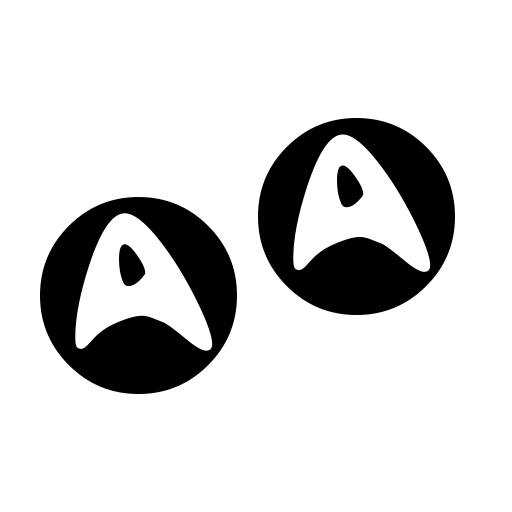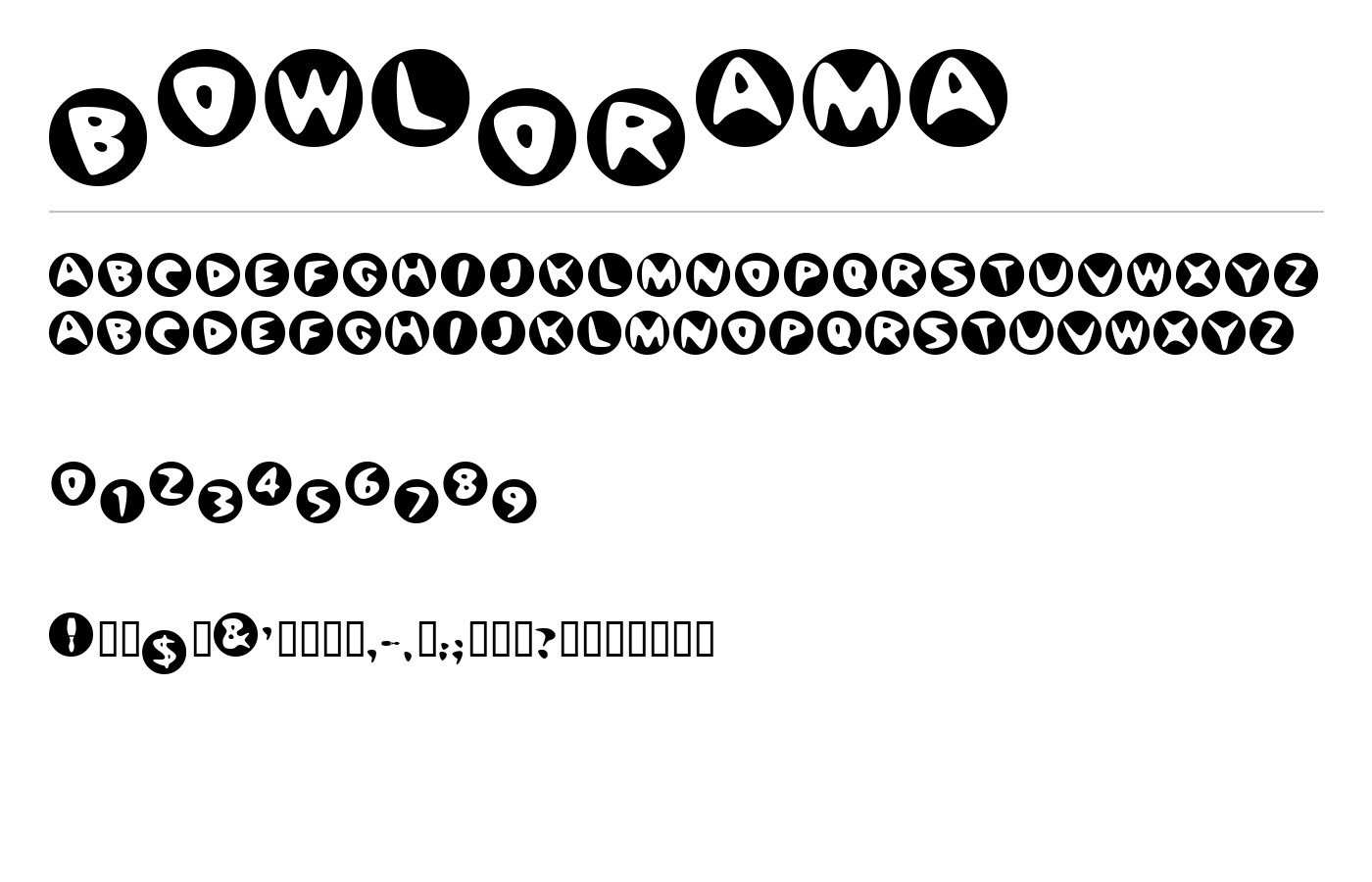
BowlORama is a playful, bold display font characterized by its chunky, rounded letterforms placed inside irregular, black oval shapes, evoking a fun and retro vibe reminiscent of bowling pins and vintage signage. Its unique, quirky design makes it perfect for casual, energetic branding, party invitations, posters, or any creative project that benefits from a lively and eye-catching style. This font works best in large sizes and decorative uses where its whimsical personality can shine.
BowlORama Font
About BowlORama Font